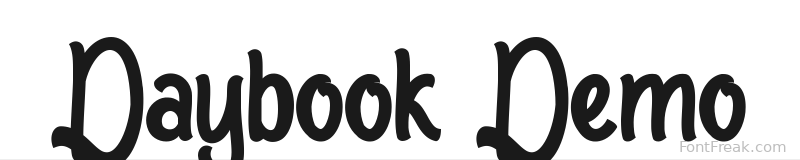
Daybook Demo Italic
Daybook Demo
Daybook Demo Italic is a captivating display font designed by Noah Type, falling into the category of decorative typefaces. This font features an elegant italic style that combines a playful charm with a touch of sophistication. The stroke weight exhibits moderate variation, giving it a lively character, while the gentle contrast in thickness adds depth and visual interest. The letters are well-spaced, ensuring clarity and legibility, making it a versatile choice for various design projects.
This font shines in specific use cases, such as wedding invitations where its graceful design can evoke romance and elegance. It’s also well-suited for movie posters, providing a stylish flair that can capture the audience's attention. Restaurant menus can benefit from its unique visual appeal, making dishes stand out with a touch of creativity. Additionally, content creators looking to enhance their branding or social media graphics will find Daybook Demo Italic an excellent fit for headers and call-to-action text, elevating their overall aesthetic.
The target audience for this font includes graphic designers, small business owners, and content creators who seek a distinctive typeface to enhance their projects. Its unique characteristics make it a perfect tool for those looking to express creativity and individuality in their designs.
What sets the Daybook Demo Italic apart from other fonts is its ability to balance artistic flair with readability. This font captures attention without overwhelming the viewer, making it a fantastic choice for a wide range of applications. With a Daybook Demo Italic font free download available, designers can easily incorporate this charming typeface into their work, bringing a touch of elegance and creativity to their projects.